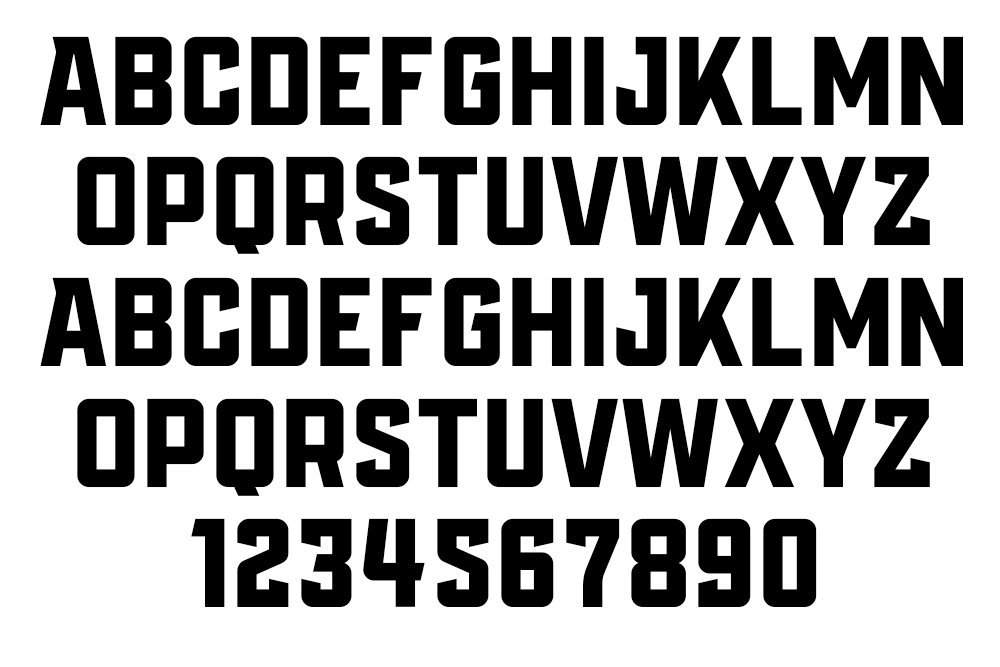
Jawbreak – Bold Sports Font with Classic Roots
Jawbreak is a modern sports font built on classic design principles. Its bold form, clean cuts, and strong presence make it perfect for sports logos, team branding, poster designs, apparel graphics, and standout headlines. With three distinct styles and alternate character cuts, Jawbreak delivers flexibility for a wide range of creative projects.
It includes a complete Adobe Latin 1 character set and supports most Western languages, making it ideal for both local and international branding.